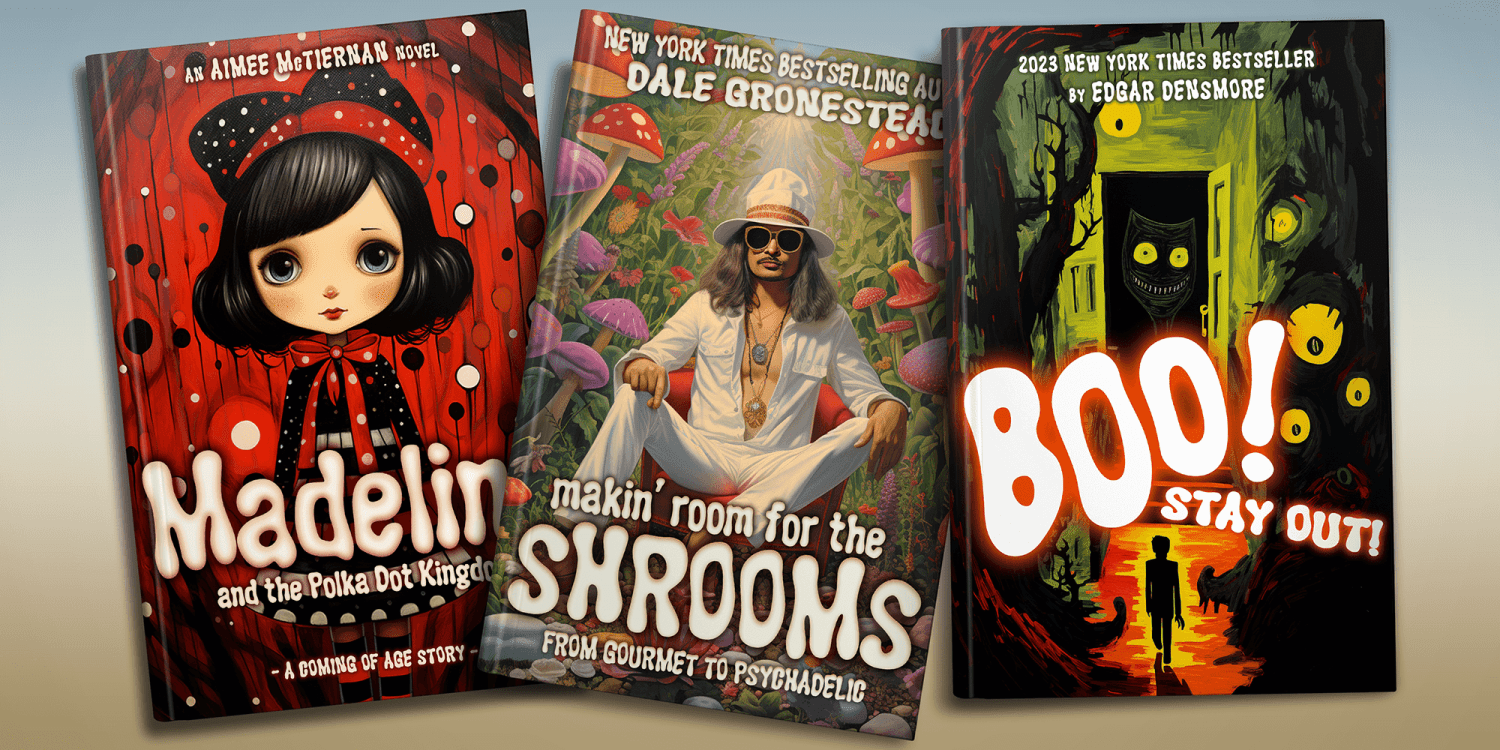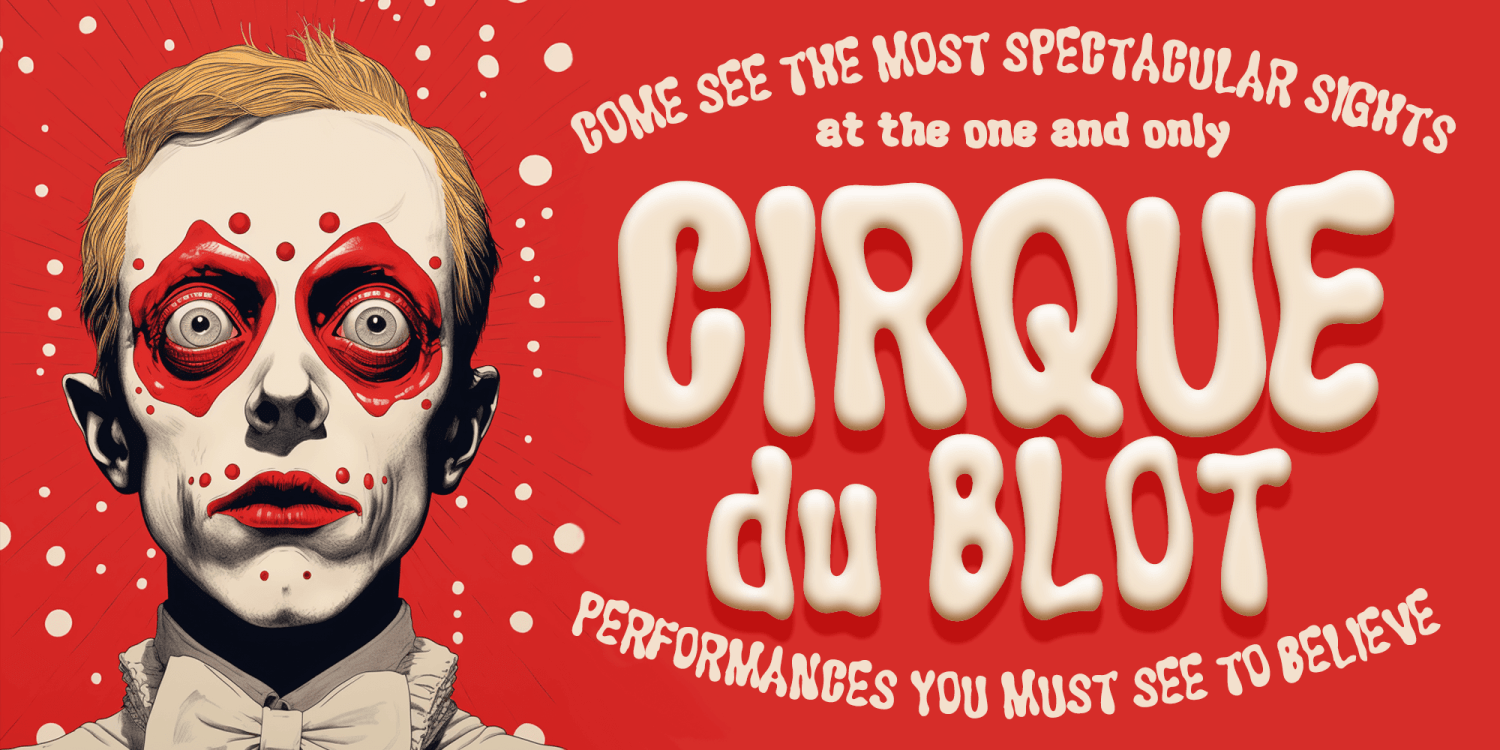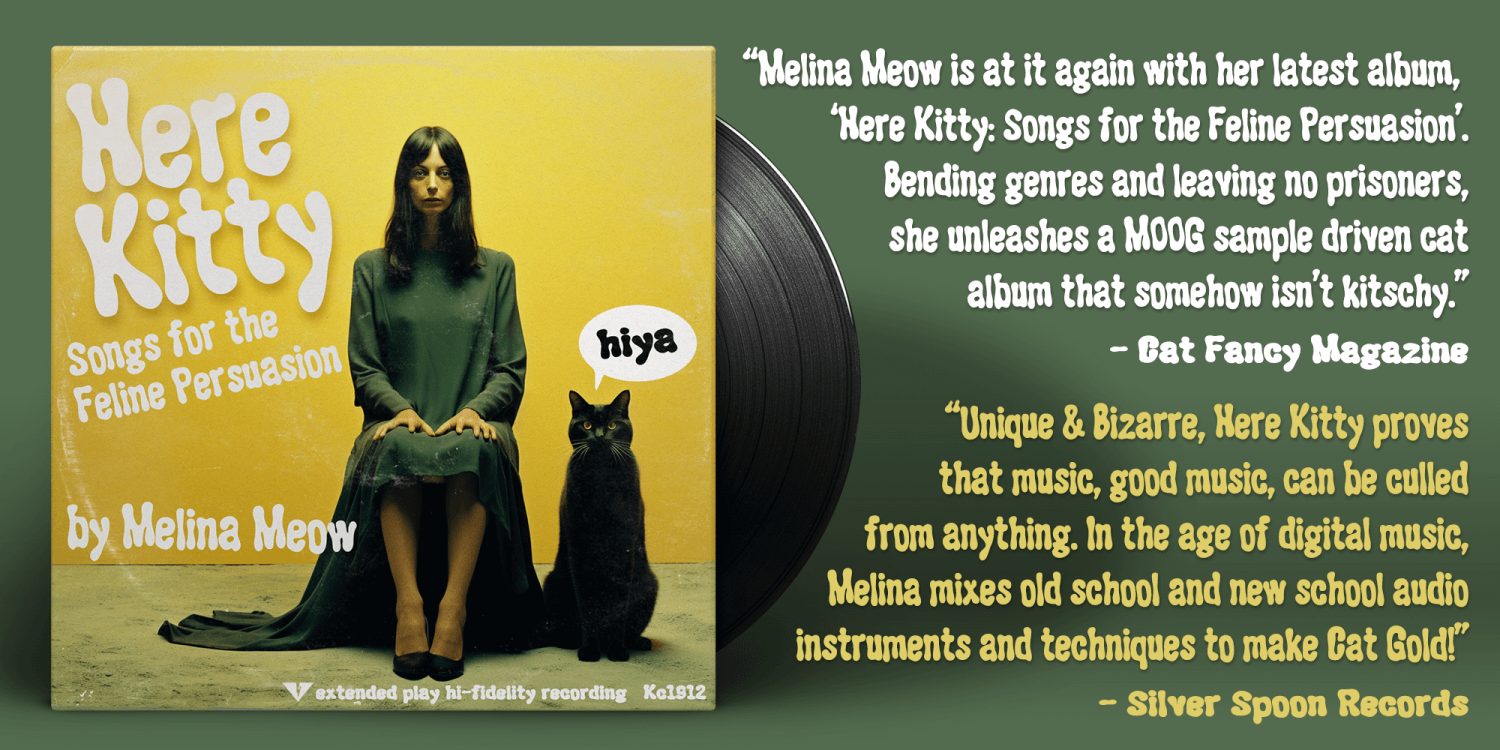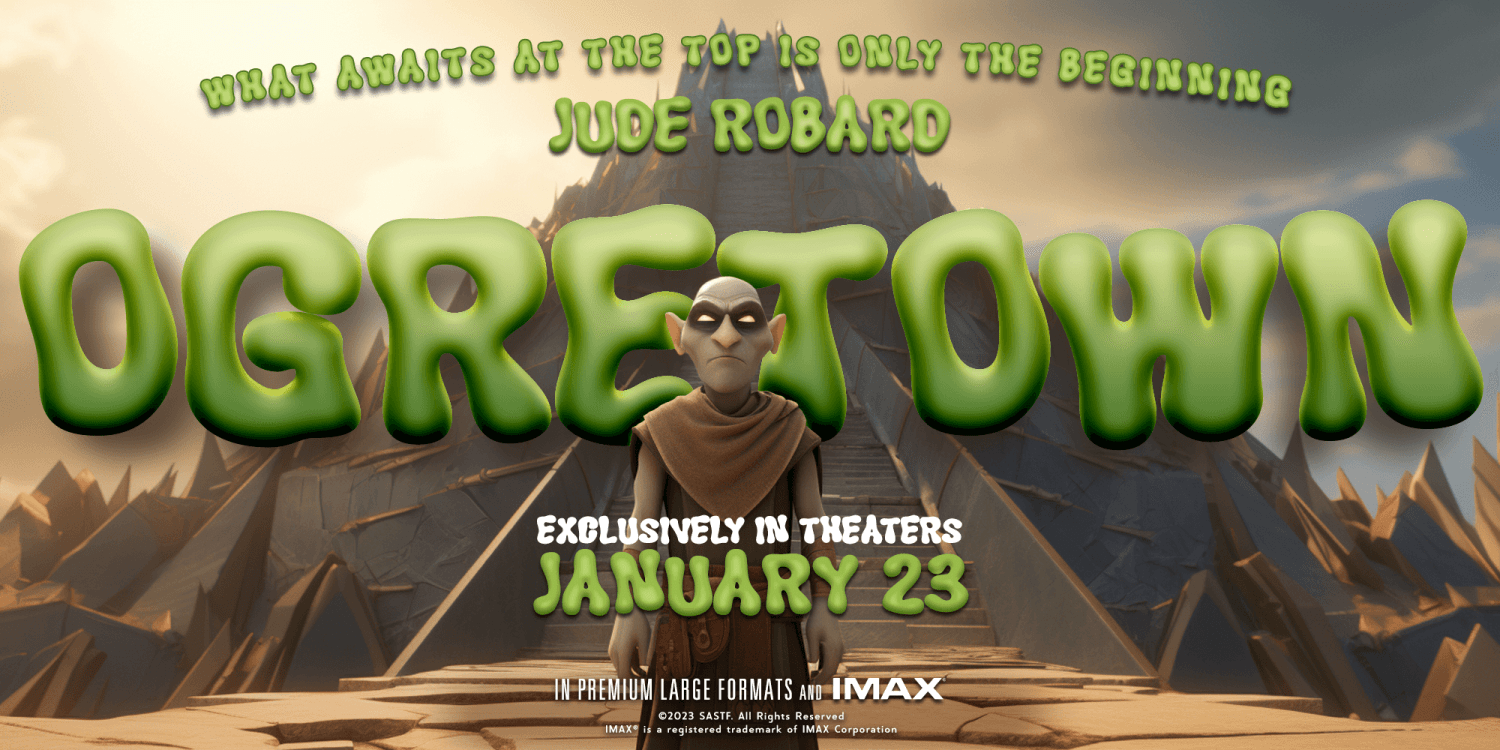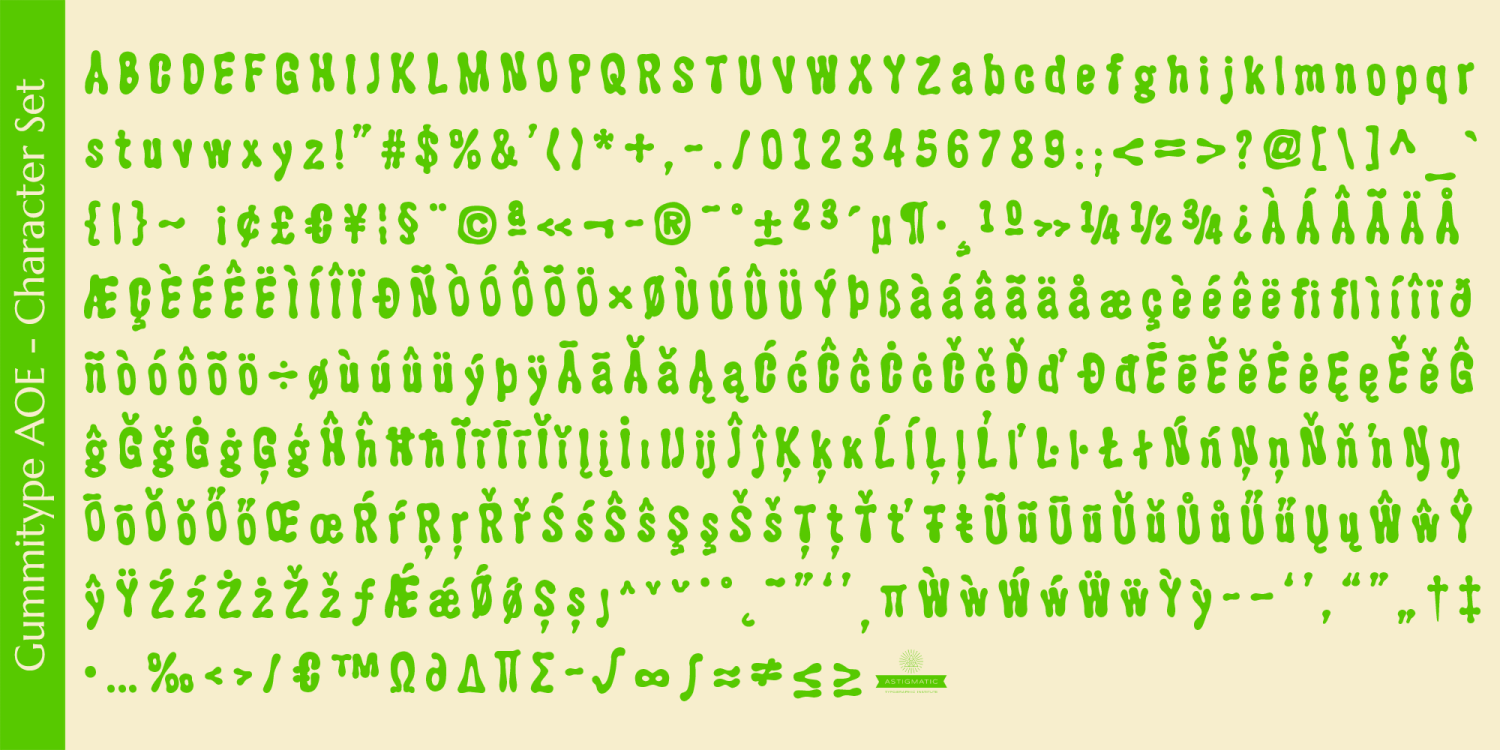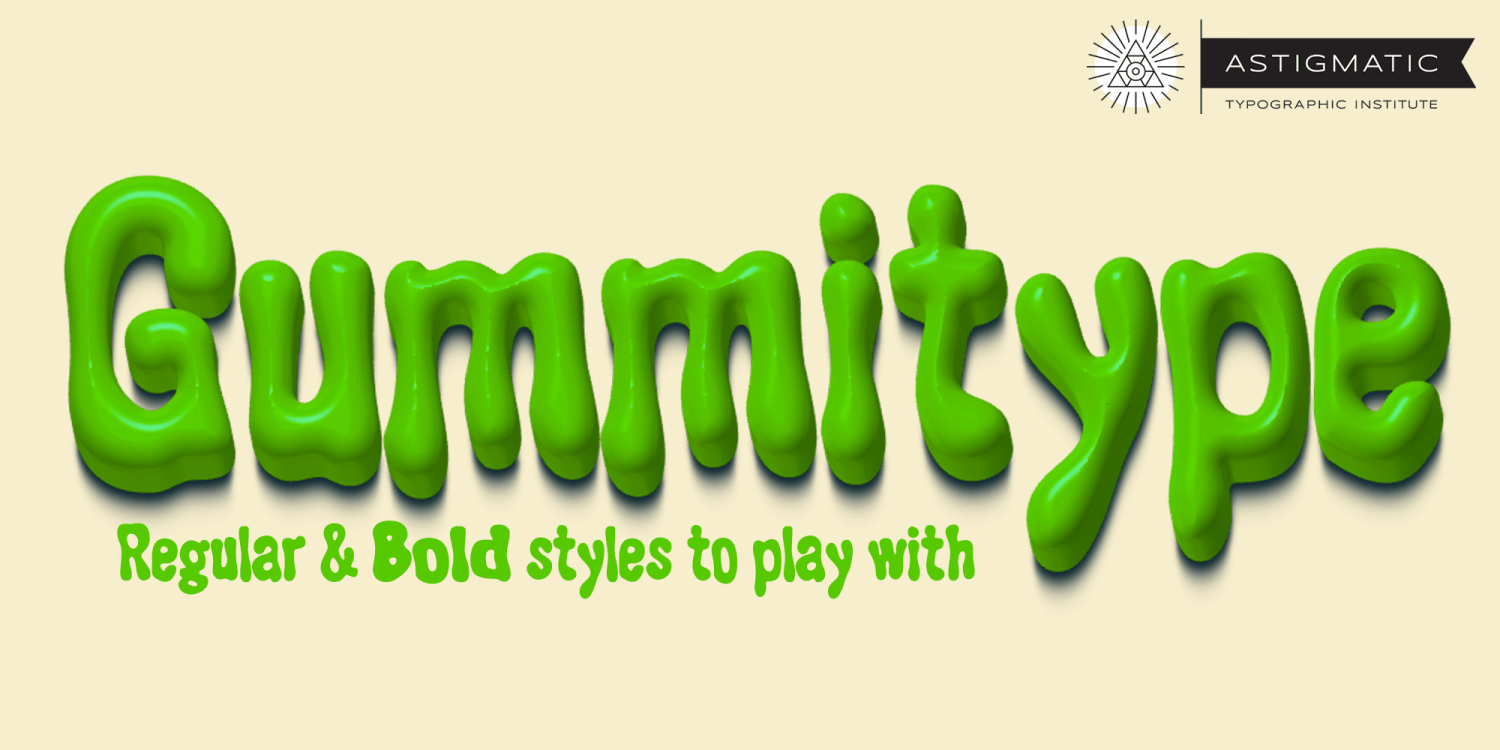
GummiType AOE
About GummiType AOE
GummiType is a wildly wobbly and clumsy gummy/jelly style letter font. It was inspired by…gummy peach rings! This was a weird typeface that I originally designed back in 2000 but never finished it. Coming across it again recently, I thought it would…